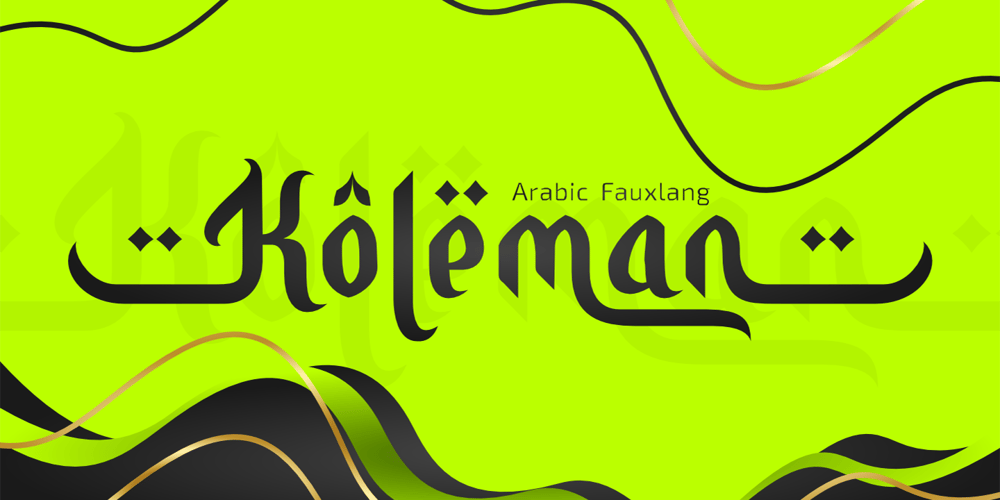
Koleman Font Family was designed by Raditya Putra Pratama and published by Raditya Type. Koleman contains 1 styles and family package options. Discover the exotic elegance of Koleman Font, a perfect fusion of modernity and Middle Eastern allure that will captivate your audience. This font offers a unique balance between readability and visual appeal. Koleman brings an international flair to every design. The perfect choice for those who dare to stand out and embrace cross-cultural beauty. Whether for striking logos, or distinctive branding, Koleman Font is your gateway to a world where East meets West in typographic harmony.